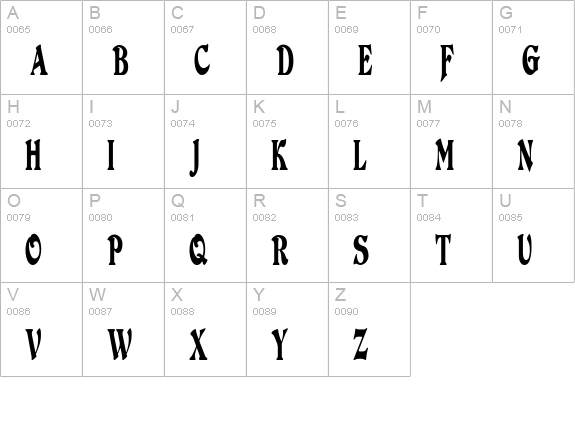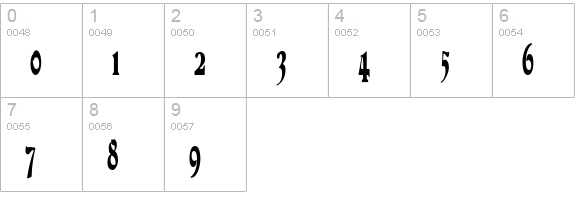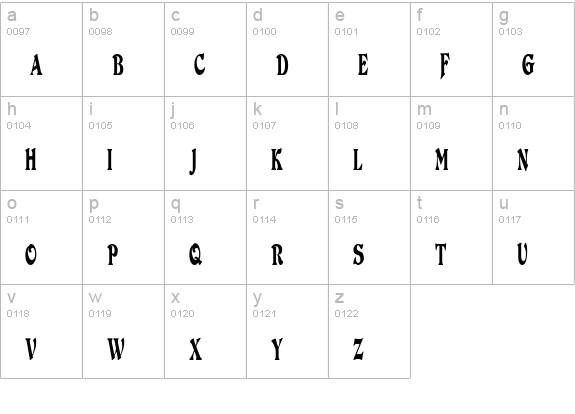
DuvallSmallCapsCondensed Font Details
DuvallSmallCapsCondensed font is a sophisticated and elegant typeface that exudes a sense of modernity and professionalism. Its small caps design provides a unique and stylish look, making it perfect for projects that require a touch of refinement. The condensed style adds a sleek and streamlined appearance, making it ideal for headings, logos, and other design elements where space is limited. What makes DuvallSmallCapsCondensed font even more appealing is that it is available for free download at FontsMarket.com. This means you can easily access this high-quality font without breaking the bank. Whether you're a designer looking to elevate your projects or a business owner in need of a distinctive font for branding purposes, DuvallSmallCapsCondensed font is a fantastic choice that won't cost you a dime. Download it today and add a touch of class to your designs!